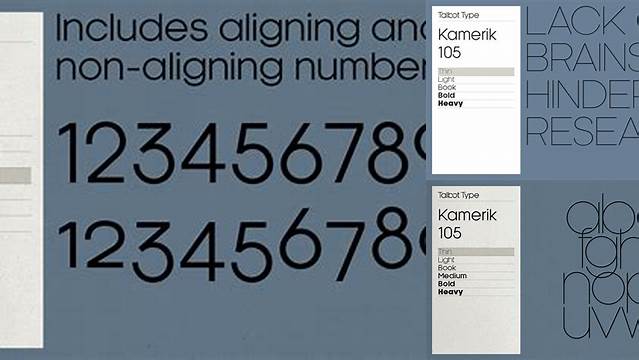
Are you looking to enhance your design projects with a touch of modern elegance? Look no further! The Kamerik 105 font family is a versatile and sophisticated typeface that can elevate your work to new heights. In this comprehensive guide, we will explore everything you need to know about the Kamerik 105 font family, including its unique features, design applications, and, most importantly, how to download it for free. Let's dive in, guys!
What is the Kamerik 105 Font Family?
The Kamerik 105 font family is a contemporary sans-serif typeface known for its clean lines, geometric shapes, and overall readability. It was designed with versatility in mind, making it suitable for a wide range of applications, from print to digital media. The font family includes various weights and styles, allowing designers to create visual hierarchies and add depth to their projects. Its modern aesthetic makes it a popular choice for branding, web design, editorial layouts, and more. When you think of fonts that blend seamlessly with today's design trends, Kamerik 105 often comes to mind. Its neutral yet distinctive character ensures that it doesn't overshadow the content but enhances it. Whether you're working on a corporate identity or a personal project, this font family offers a professional touch that's hard to ignore. The different weights—from light to bold—provide the flexibility needed to create visual interest and hierarchy within your designs. Imagine using the light weight for body text to ensure readability, and then switching to a bold weight for headings to grab the reader's attention. That's the power of a well-designed font family. Furthermore, the geometric shapes that define Kamerik 105 give it a contemporary edge. These shapes contribute to its clean and uncluttered appearance, making it easy on the eyes and perfect for both print and digital formats. In the digital realm, this translates to better on-screen legibility, which is crucial for websites and apps. In print, the font's clarity ensures that your message comes across loud and clear, no matter the size or medium. So, if you're looking for a font that combines modernity, versatility, and readability, Kamerik 105 is definitely worth considering. It’s a typeface that adapts to your needs and helps you create visually stunning and effective designs.
Key Features of Kamerik 105
- Clean and Modern Design: Kamerik 105 boasts a minimalist design that exudes professionalism and sophistication. Its clean lines and geometric forms create a contemporary look that's perfect for modern branding and design projects. If you're aiming for a sleek, uncluttered aesthetic, this font is a great choice.
- Versatility: One of the standout features of Kamerik 105 is its versatility. The font family includes a range of weights, from light to bold, as well as various styles such as regular, italic, and condensed. This allows you to create visual hierarchies and add emphasis to your designs, making it suitable for headlines, body text, and everything in between.
- Readability: Kamerik 105 is designed with readability in mind. Its well-balanced letterforms and generous spacing make it easy to read in both print and digital formats. This is crucial for ensuring your message is effectively communicated, whether it's on a website, brochure, or poster. The attention to detail in its design ensures that each character is clear and distinct, preventing eye strain and enhancing the overall reading experience. This focus on readability makes it a reliable choice for projects that require large amounts of text, such as articles, reports, and books. In the digital realm, where screen fatigue can be a concern, a font like Kamerik 105 is invaluable. Its clarity helps keep readers engaged and ensures that your content is accessible to a wide audience.
- Multiple Weights and Styles: As mentioned earlier, Kamerik 105 comes in various weights and styles. This flexibility is a significant advantage for designers. Different weights can be used to create visual contrast and hierarchy within a design. For instance, you might use a bold weight for headings and a lighter weight for body text. The italic style can add emphasis or provide a softer touch, while condensed styles are useful for fitting text into tight spaces. This variety allows for creative freedom and ensures that you can tailor the font to suit the specific needs of your project. Whether you're designing a website, a brochure, or a logo, the different weights and styles of Kamerik 105 provide the tools you need to create a cohesive and visually appealing design. It's this adaptability that makes it a favorite among designers who value both form and function.
- Wide Language Support: Kamerik 105 supports a wide range of languages, making it a global-friendly font choice. This is particularly important for projects that target international audiences. Ensuring that your font supports the languages you need can prevent display issues and maintain consistency across different versions of your design.
Design Applications of Kamerik 105
Branding
Kamerik 105 is an excellent choice for branding due to its clean and professional appearance. A strong brand identity is crucial in today's competitive market, and the typeface you choose plays a significant role in shaping your brand's image. Kamerik 105’s modern and minimalist design makes it suitable for a wide range of industries, from tech startups to corporate businesses. Its versatility ensures that it can be used across various branding materials, including logos, business cards, letterheads, and marketing collateral. When designing a logo, for example, the clean lines of Kamerik 105 can convey a sense of reliability and innovation. Its geometric shapes give it a contemporary edge, which is particularly appealing to brands that want to project a forward-thinking image. For business cards and letterheads, the font's readability ensures that your contact information is clear and easy to read. This is essential for making a good first impression. In marketing materials, such as brochures and websites, Kamerik 105 can help maintain a consistent visual identity. Using the same font across all platforms reinforces your brand message and creates a cohesive look and feel. The different weights and styles within the Kamerik 105 family also provide flexibility in your branding efforts. You can use a bold weight for headings to grab attention and a lighter weight for body text to ensure readability. This allows you to create a visual hierarchy that guides the viewer's eye and highlights key information. Overall, the professional and adaptable nature of Kamerik 105 makes it a valuable asset for any branding project. It helps you create a strong, consistent brand identity that resonates with your target audience. The font’s modern aesthetic and clear legibility make it a top contender for businesses looking to make a lasting impression.
Web Design
In web design, Kamerik 105 shines due to its excellent readability on screens. The digital landscape demands fonts that are not only visually appealing but also highly functional. Kamerik 105 ticks both boxes, making it a popular choice for websites, web applications, and other digital interfaces. A website’s typography plays a crucial role in user experience. A well-chosen font can enhance readability, improve engagement, and guide the user’s eye through the content. Kamerik 105’s clean and uncluttered design ensures that text remains legible even at smaller sizes, which is essential for responsive web design. This means your website will look great on any device, whether it’s a desktop computer, a tablet, or a smartphone. The font’s versatility also allows you to create a consistent visual hierarchy on your website. You can use different weights and styles to differentiate headings from body text, highlight important information, and add visual interest to your pages. For example, you might use a bold weight for headlines to grab attention and a lighter weight for paragraphs to make reading easier. Moreover, Kamerik 105’s modern aesthetic complements a wide range of website designs. Whether you’re creating a minimalist portfolio site, a corporate website, or an e-commerce platform, this font can seamlessly integrate with your design. Its neutral character ensures that it doesn’t overshadow the content but rather enhances it. Another advantage of using Kamerik 105 in web design is its wide language support. This is particularly important if your website targets an international audience. Ensuring that your font supports multiple languages can prevent display issues and maintain a consistent user experience across different versions of your site. In addition to its readability and versatility, Kamerik 105 is also optimized for web performance. It’s designed to load quickly, which is crucial for maintaining a fast and responsive website. Slow-loading fonts can negatively impact your site’s performance and user experience, so choosing a web-optimized font like Kamerik 105 is a smart decision.
Editorial Layouts
For editorial layouts, Kamerik 105 provides a polished and professional look. Editorial design, which includes magazines, newspapers, books, and other publications, requires fonts that are both visually appealing and highly readable. Kamerik 105 excels in this area, making it a favorite among editorial designers. The font's clean lines and balanced letterforms ensure that text is easy to read, even in long-form content. This is crucial for keeping readers engaged and preventing eye strain. Whether you’re designing a magazine article, a newspaper column, or a book chapter, Kamerik 105 can help you create a layout that is both aesthetically pleasing and functional. One of the key advantages of using Kamerik 105 in editorial design is its versatility. The font family includes a range of weights and styles, allowing you to create a visual hierarchy within your layout. You can use different weights for headlines, subheadings, and body text to guide the reader’s eye and highlight important information. The italic style can also be used to add emphasis or create a softer touch. For example, you might use a bold weight for headlines to grab attention and a lighter weight for body text to ensure readability. Subheadings can be set in a medium weight to create a clear structure within the content. The italic style can be used for captions or to emphasize key quotes. In addition to its readability and versatility, Kamerik 105 also complements a wide range of editorial styles. Whether you’re designing a minimalist magazine, a classic novel, or a modern newspaper, this font can seamlessly integrate with your design. Its neutral character ensures that it doesn’t overshadow the content but rather enhances it. Another important consideration in editorial design is consistency. Using the same font family throughout a publication helps create a cohesive and professional look. Kamerik 105’s wide range of weights and styles makes it easy to maintain consistency while still adding visual interest to your layouts. You can use different styles for different sections of the publication, such as headlines, body text, and captions, while still maintaining a unified visual identity.
Print Materials
Kamerik 105 is equally effective in print materials, where clarity and legibility are paramount. Print design encompasses a wide range of applications, including brochures, posters, business cards, flyers, and more. In all these mediums, typography plays a crucial role in conveying your message effectively. Kamerik 105’s clean and modern design ensures that your text is easily readable, making it a reliable choice for any print project. Whether you’re designing a brochure for a corporate event, a poster for a music festival, or a business card for a new client, Kamerik 105 can help you create visually appealing and effective materials. The font’s versatility allows you to adapt it to different design styles and purposes. For example, you might use a bold weight for headlines to grab attention and a lighter weight for body text to ensure readability. The italic style can be used to add emphasis or create a softer touch. When designing brochures, clarity is key. Kamerik 105’s well-balanced letterforms and generous spacing make it easy to read even in long paragraphs. This is essential for conveying detailed information effectively. For posters, visual impact is crucial. The font’s modern aesthetic and clean lines can help you create a design that stands out and captures the viewer’s attention. You can use different weights and styles to create a dynamic and engaging layout. Business cards need to be both visually appealing and highly functional. Kamerik 105’s readability ensures that your contact information is clear and easy to read. Its professional appearance can also help you make a good first impression. In addition to its readability and versatility, Kamerik 105 is also optimized for print production. It’s designed to reproduce well on a variety of printing surfaces, ensuring that your materials look their best. Whether you’re printing on glossy paper, matte paper, or even textured paper, Kamerik 105 will deliver crisp and clear results. This makes it a reliable choice for any print project, regardless of the printing method or materials used. The font’s consistent quality and professional appearance make it a valuable asset for any designer working in print.